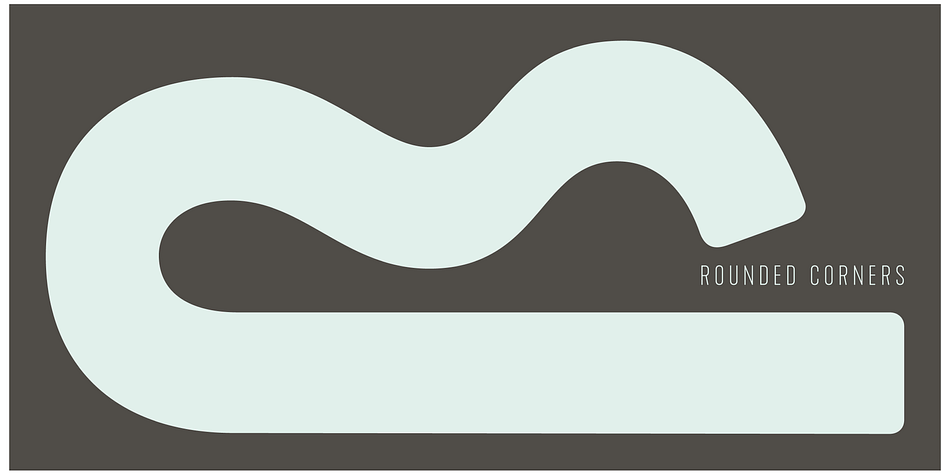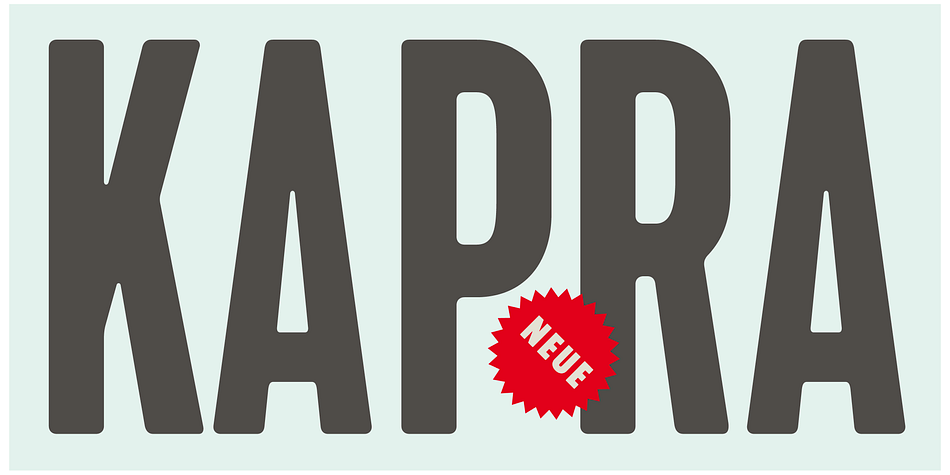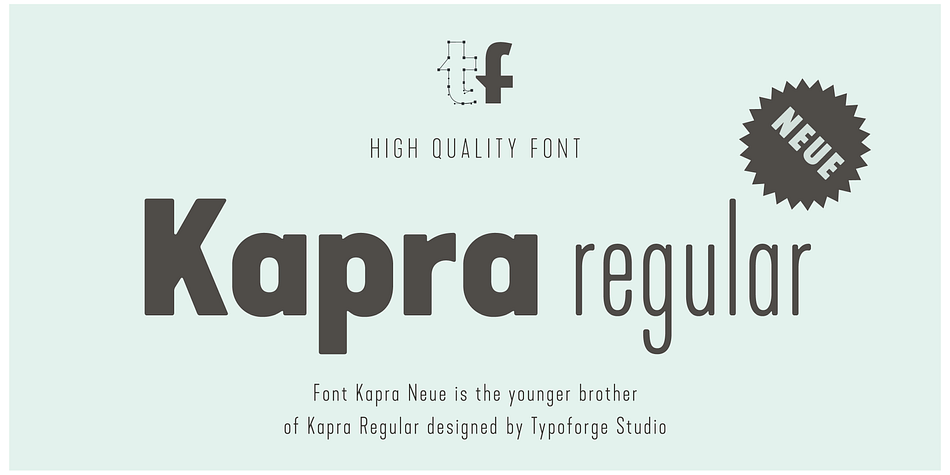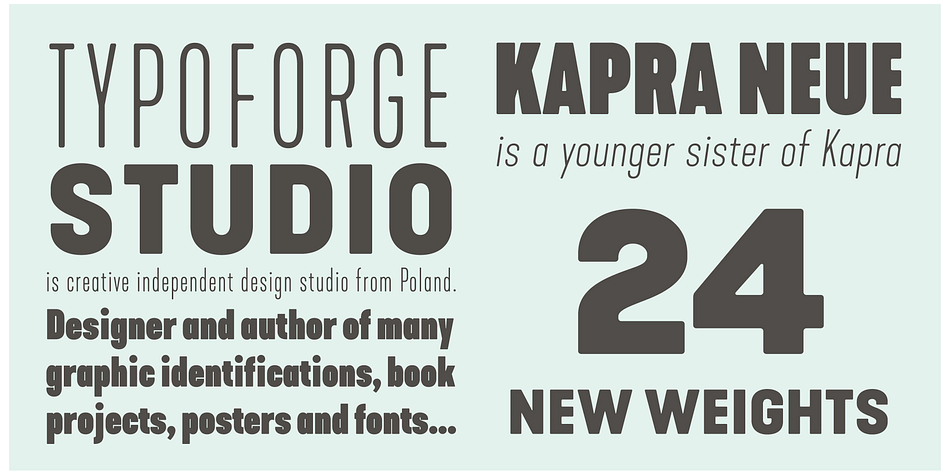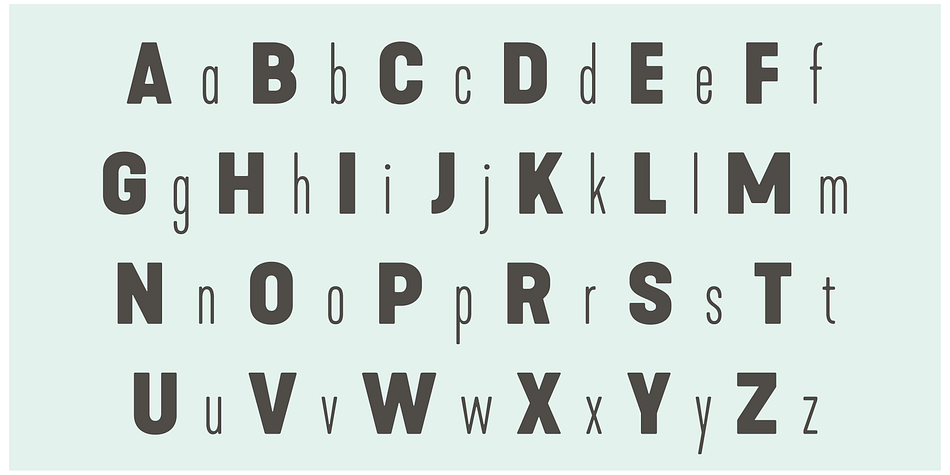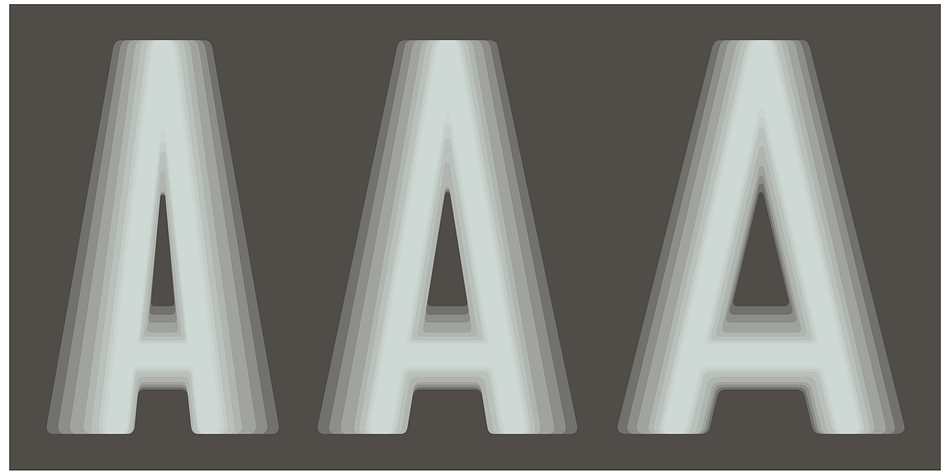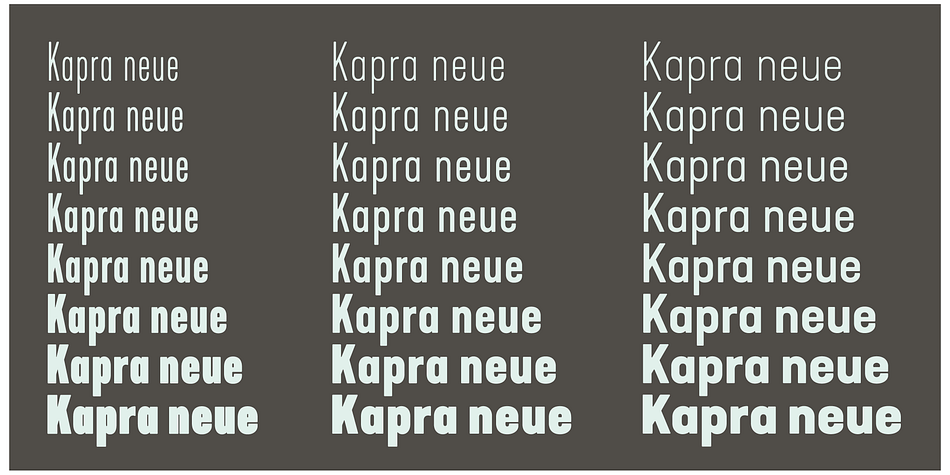
Kapra Neue is a sans serif font family. This typeface has forty-eight styles and was published by Typoforge Studio.
Kapra Neue is a younger sister of Kapra. New family has refreshed proportions, rounded corners, and a new shape of glyphs.
It is characterised by a wide range of instances – 24 new weights, from Thin Condensed to Black Expanded, allow to use the family in a complex way, depending on the user’s needs. Every instance comes with it’s italic version. Each font has a glyph set for Latin script and old-style figures.
Kapra Neue is inspired by a “You And Me Monthly” magazine, published by National Magazines Publisher RSW “Prasa” in Poland, from Mai 1960 till December 1973.